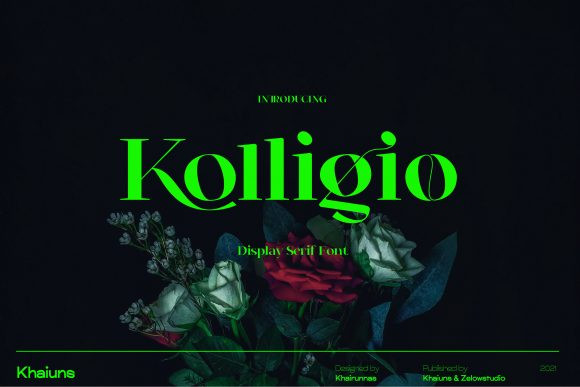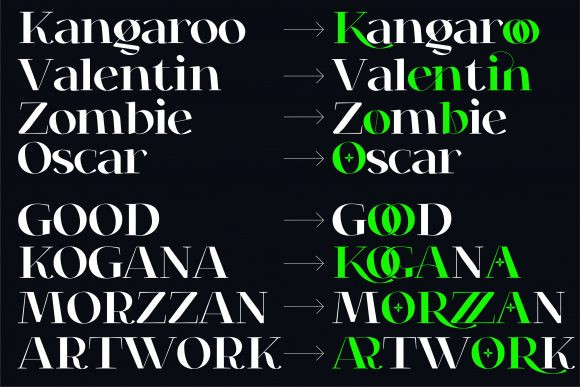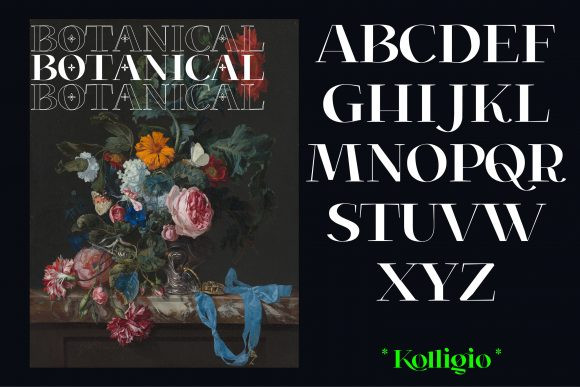
Kolligio Font
Kolligio is an elegant and trendy serif font. This font is neatly crafted and highly detailed. Whatever the topic, this font will be a wonderful asset to your font library, as it has the potential to enhance any creation.